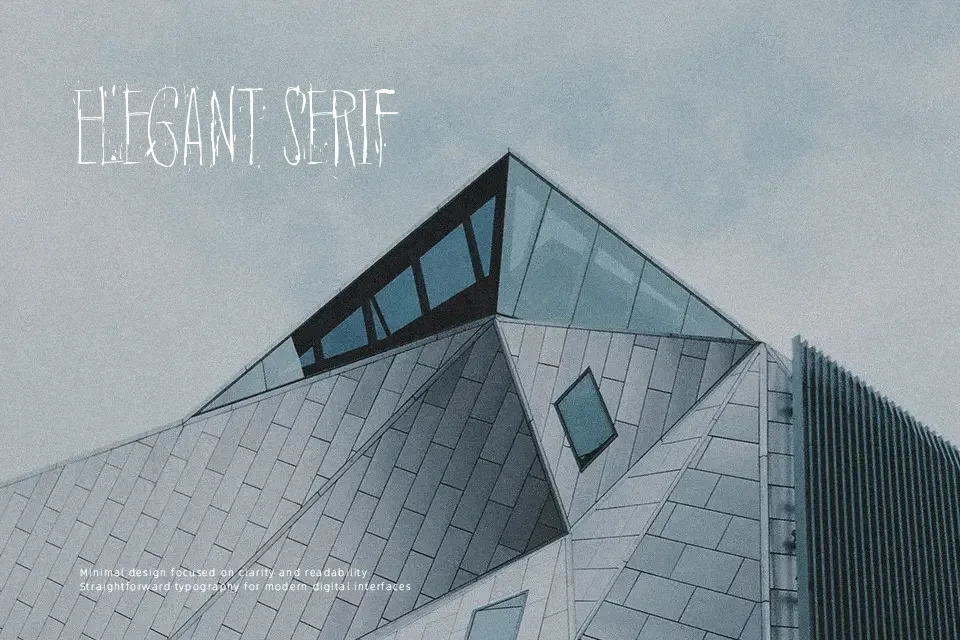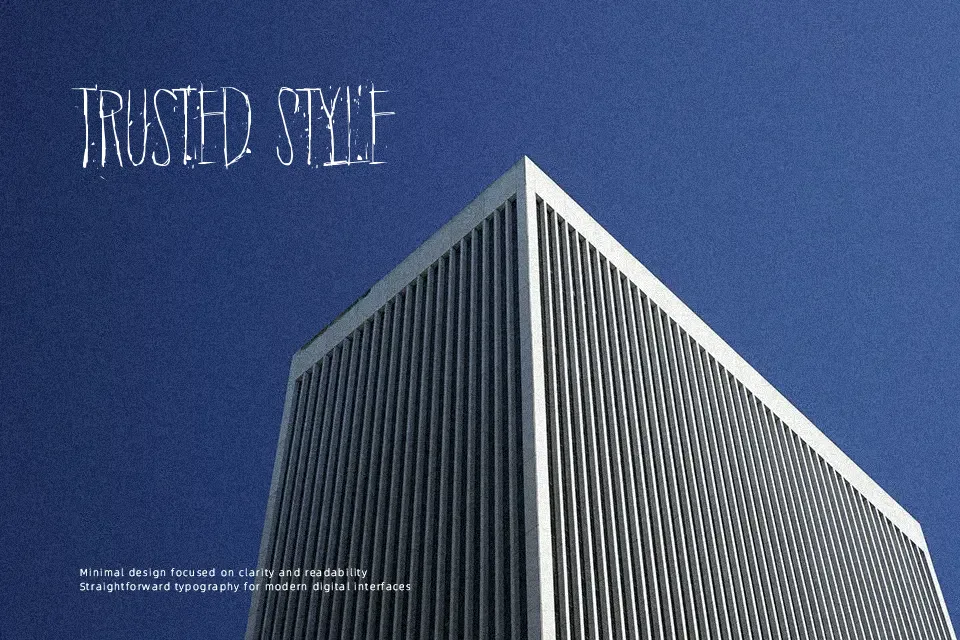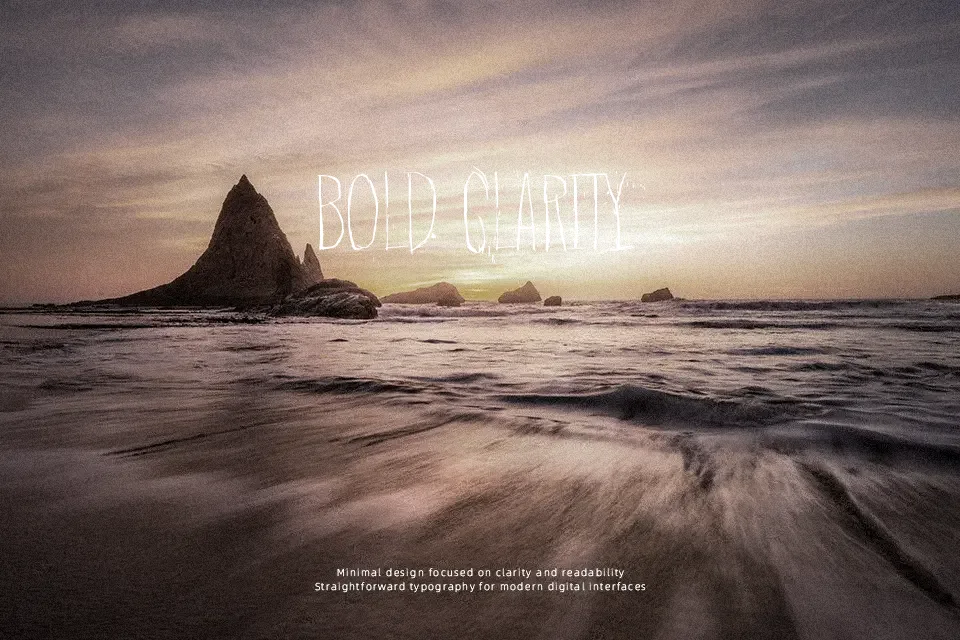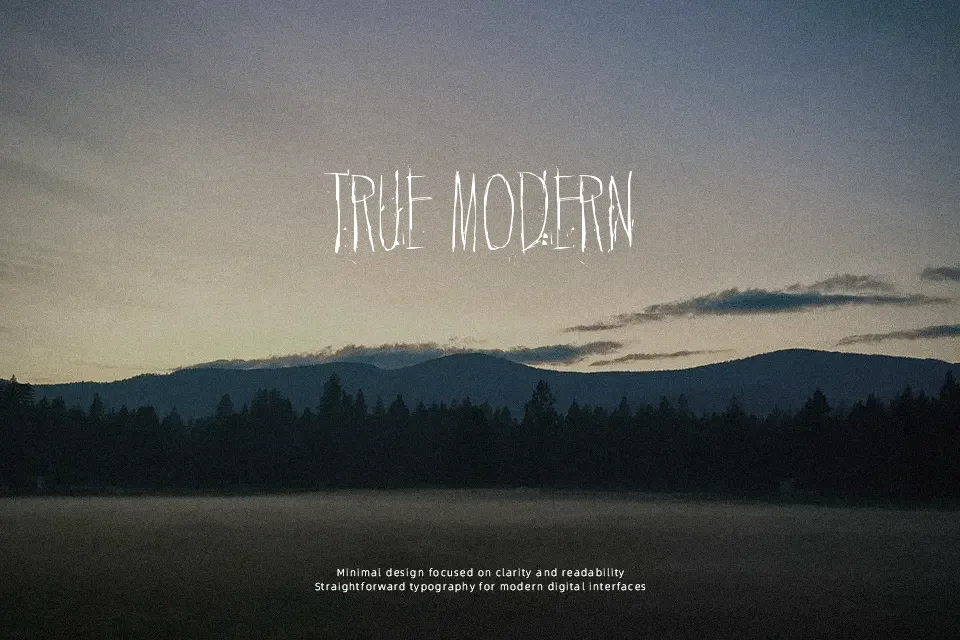
Quiet Horror Story Font
When utilized in high-impact display settings, Quiet Horror Story immediately establishes a chaotic and unsettling atmosphere. The letterforms display aggressive, scratched stroke styles with inconsistent character widths and a wildly dancing baseline. This rough, hand-drawn structure creates significant visual tension, making the design highly effective for thriller movie titles, haunted house promotional materials, and dark apparel graphics. The open, unpredictable spacing helps maintain clarity in larger headlines but quickly deteriorates in tighter layouts. Because of the heavily distressed edges and erratic proportions, these letterforms become quite difficult to decipher at smaller point sizes, making the typeface highly unsuitable for continuous paragraphs.
thriller movie titles
haunted house promotional flyers
dark aesthetic apparel graphics
horror video game logos
continuous paragraph reading
Perfect for film, gaming, and halloween, with a dark and decorative style.